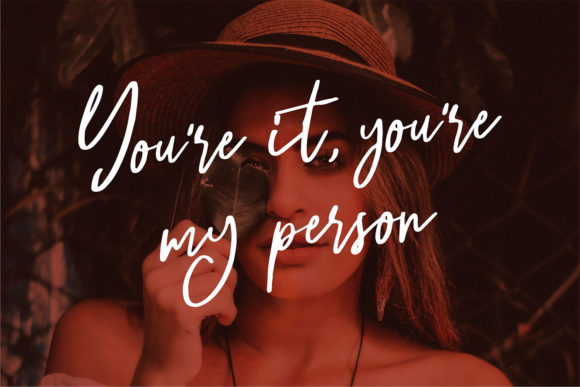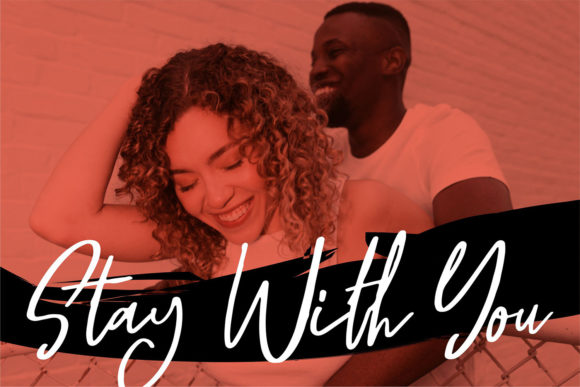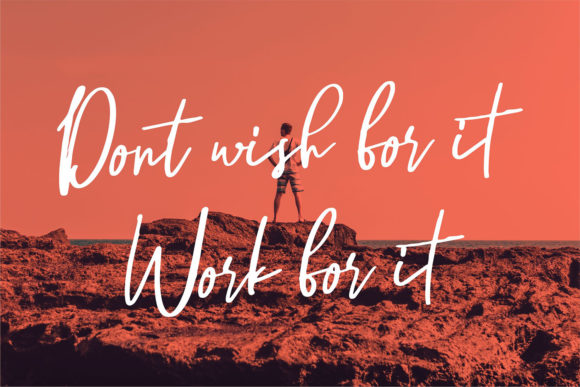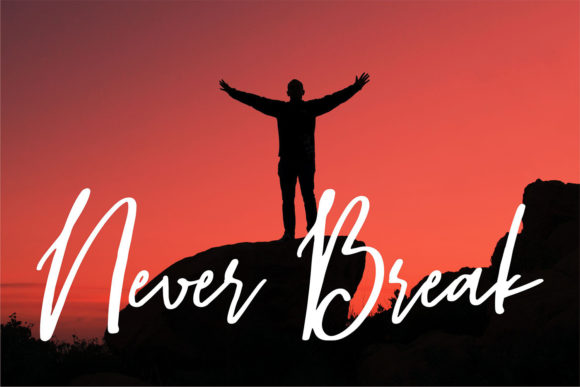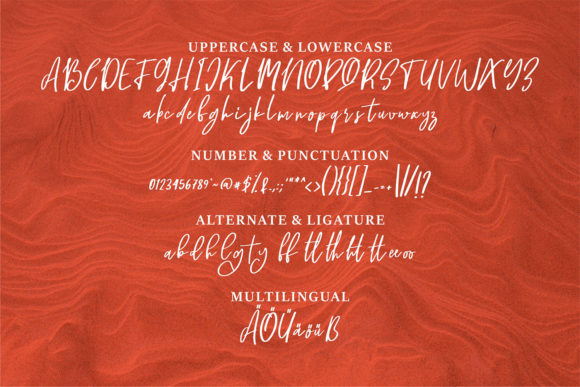
Introduction to Hatsumy Font
Hatsumy is a chic, stylish script font that emanates sophistication and versatility.
Its luxurious alternates and ligatures make this font the perfect match for any project .
Key Features of Hatsumy Font
Why Choose Hatsumy Font?